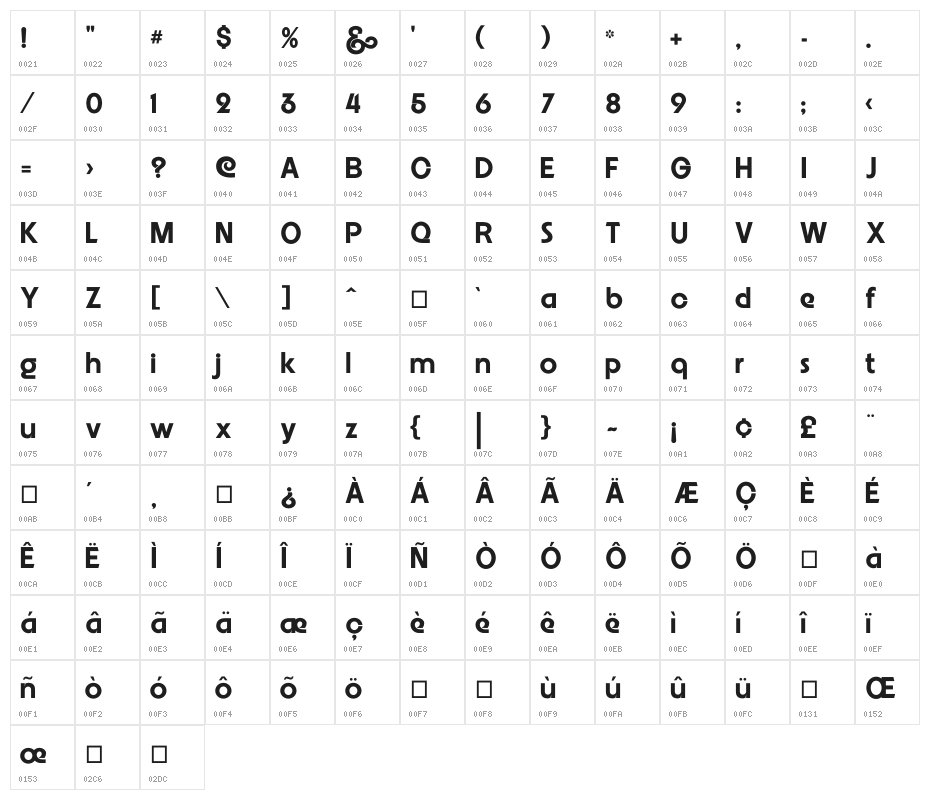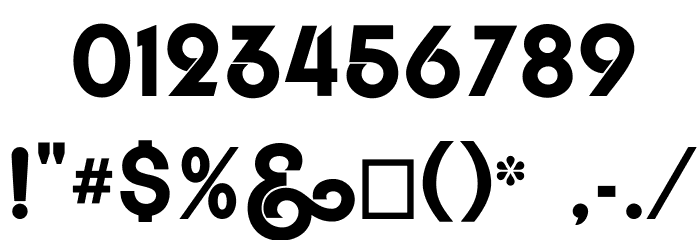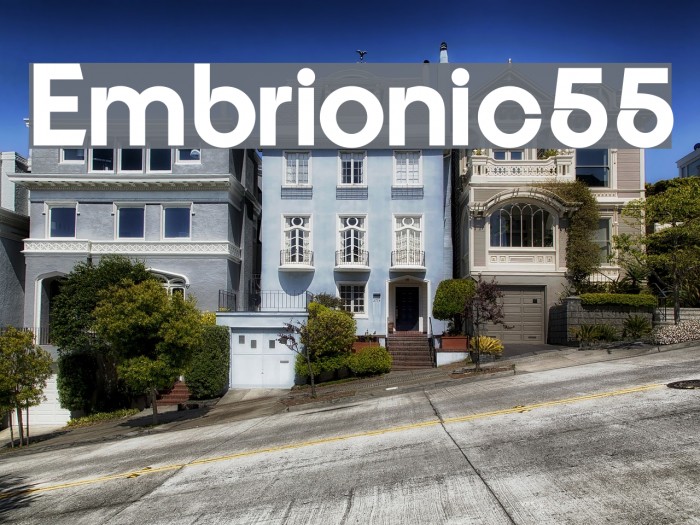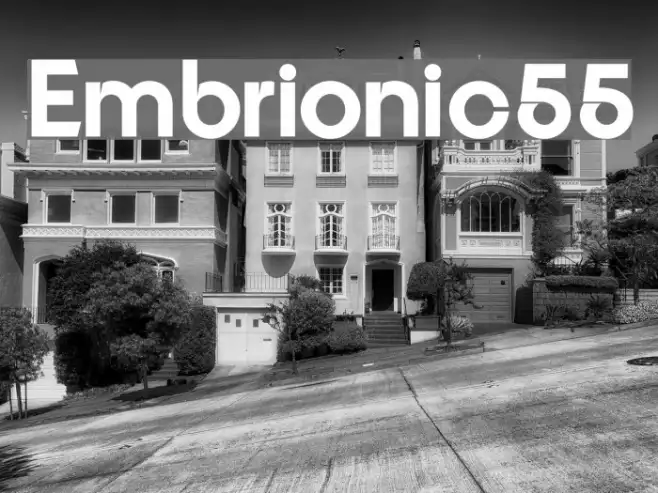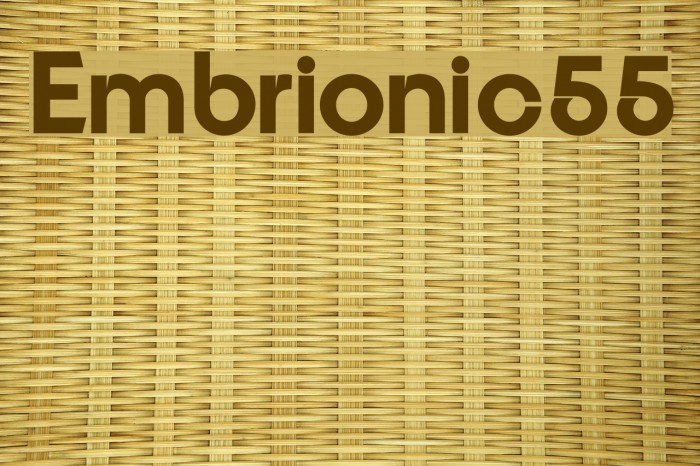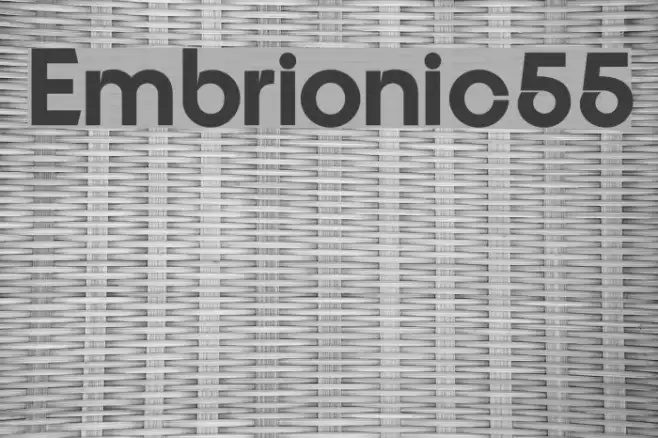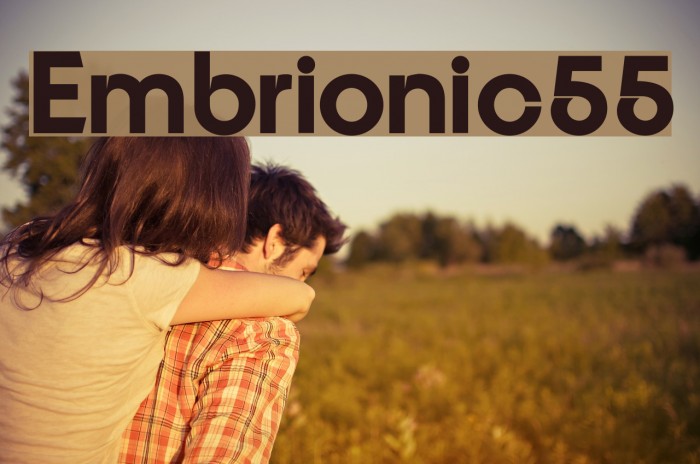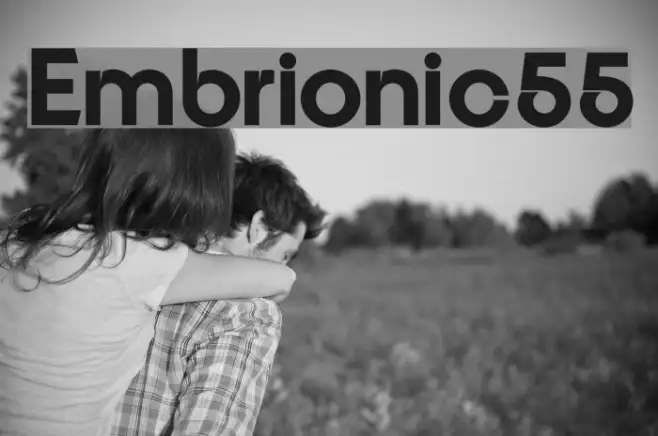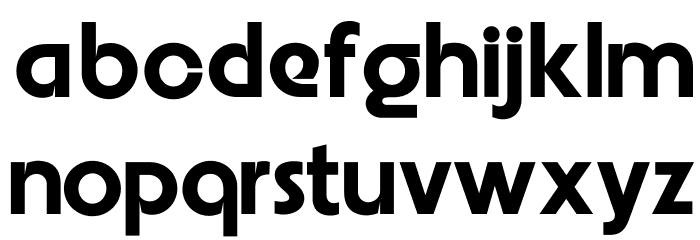
Embrionic55 Font
Embrionic55 Description
This font features a bold and modern sans-serif design with clean, geometric lines. The characters are well-proportioned, with a consistent stroke width that gives it a uniform appearance. The uppercase letters are strong and impactful, while the lowercase letters maintain a rounded and approachable feel. The numerals are clear and easy to read, making them suitable for various applications. Special characters are included, adding versatility to the font's use. The overall style is contemporary, making it ideal for digital and print media.